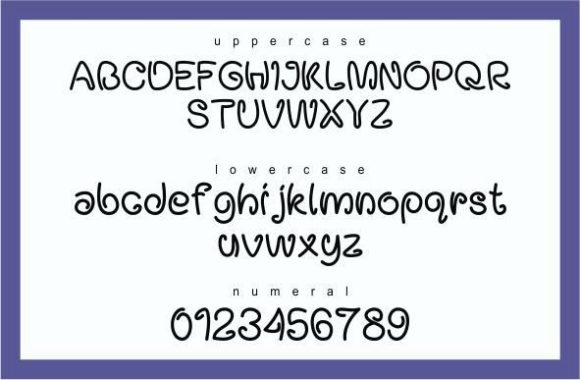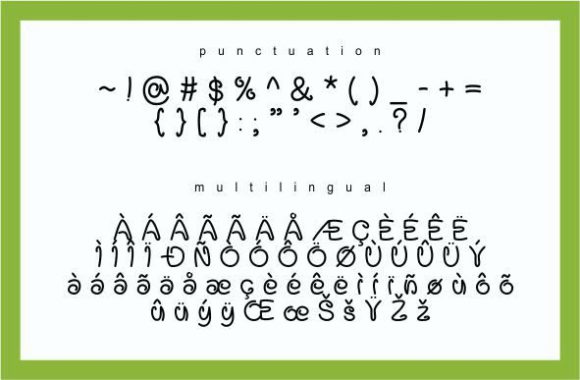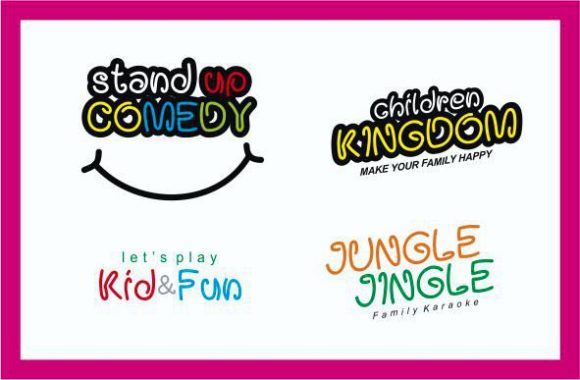
Introduction to Gundos Font
The new Gundos design is a decorative font suitable for kids projects, comics, magazine covers, posters and more.
This playful font is a great tool for your future projects .
Key Features of Gundos Font
Why Choose Gundos Font?
Gundos Font offers exceptional quality and versatility, making it a valuable addition to your design toolkit. Whether you’re creating for personal projects or commercial use, Gundos Font delivers professional results.